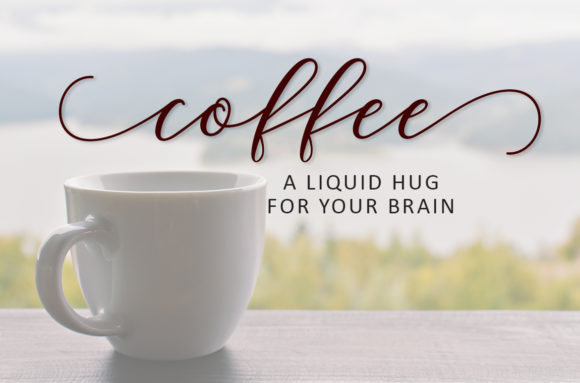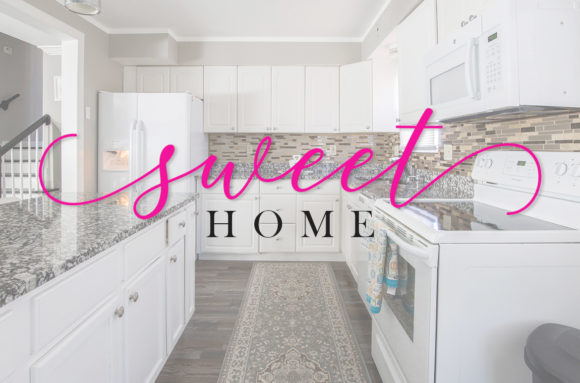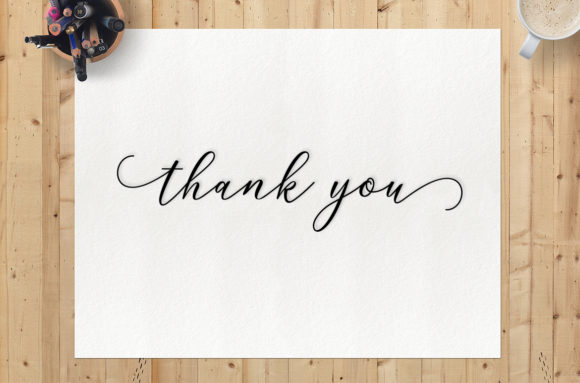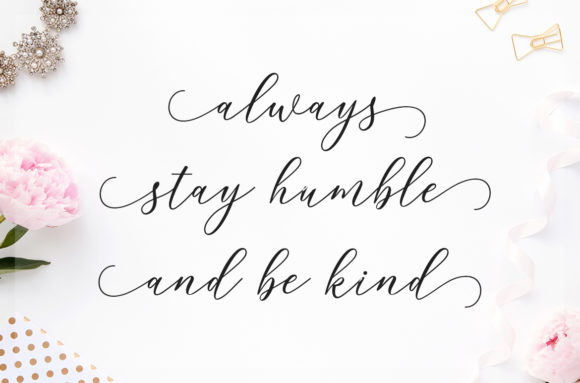
The Berlian Script Font: A Timeless Beauty for Your Designs
As a designer, I’ve had my fair share of moments where I’ve struggled to find the perfect font for a project. I recall working on a wedding invitation design, searching for a font that exuded elegance and sophistication. That’s when I stumbled upon the Berlian Script font, and I was immediately smitten. Its unique charm, bold swashes, and timeless appeal won me over, and I’ve been using it in my designs ever since.
So, what makes Berlian Script so special? Here are a few things I love about this stunning font:
- ✨ Elegant and sophisticated: Berlian Script has a luxurious feel to it, making it perfect for high-end designs, wedding invitations, and branding materials.
- ✅ Unique charm: The font’s bold swashes and flourishes add a touch of personality to any design.
- 💫 Versatile: Berlian Script works well in both digital and print designs, from social media graphics to business cards.
While Berlian Script is an amazing font, there are a few quirks to be aware of:
- ⚠️ Limited use in body text: Due to its decorative nature, Berlian Script is best used in headlines, titles, or short paragraphs. For longer text, consider pairing it with a more readable font.
- 🤔 Occasional kerning issues: As with any script font, you may need to adjust the kerning to ensure optimal spacing between letters.
The Story Behind Berlian Script
Berlian Script was designed by a talented type designer who drew inspiration from traditional calligraphy and handwriting. The font’s unique charm and elegance make it perfect for designs that require a touch of sophistication.
| Author | Amarlettering |
| What is Berlian Script best used for? | Berlian Script is perfect for high-end designs, wedding invitations, branding materials, and any project that requires a touch of elegance and sophistication. |
| Can I use Berlian Script for body text? | While Berlian Script is beautiful, it’s best used in headlines, titles, or short paragraphs. For longer text, consider pairing it with a more readable font. |
| Is Berlian Script suitable for digital designs? | Yes! Berlian Script works well in digital designs, from social media graphics to website headers. |